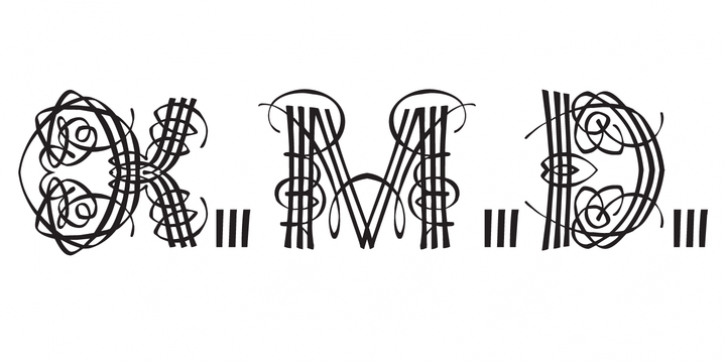
Raffish was designed by Ian Lynam and published by Wordshape. Raffish contains 1 style.
Raffish is a display typeface with its formal base in Dutch type designer Henk Krijger's seminal typeface Raffia - the most decorative and handsome of script typefaces.